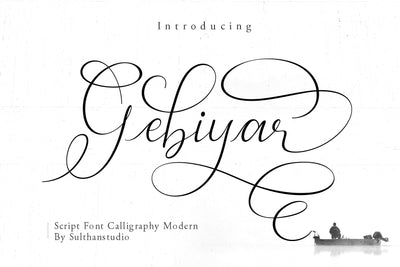
Gebiyar
Gebiyar is an elegant modern calligraphy font. Script with thick and thin letters that match the calligraphy brush style, decorative characters and basic dancing!
Very beautiful on invitations such as greeting cards, branding
materials, business cards, quotes, posters and more!
Gebiyar comes with 557 glyphs.
Equipped with uppercase, lowercase, numbers, punctuation, swashes, ligatures, alternative characters, and also language support